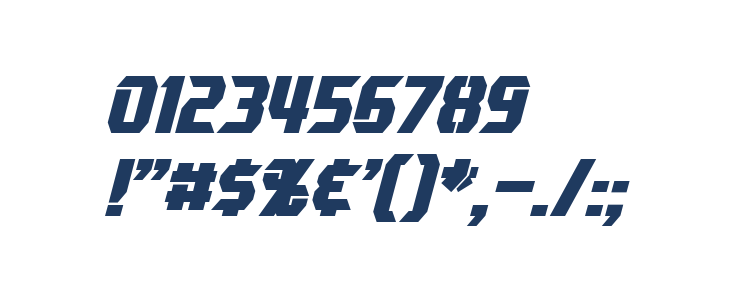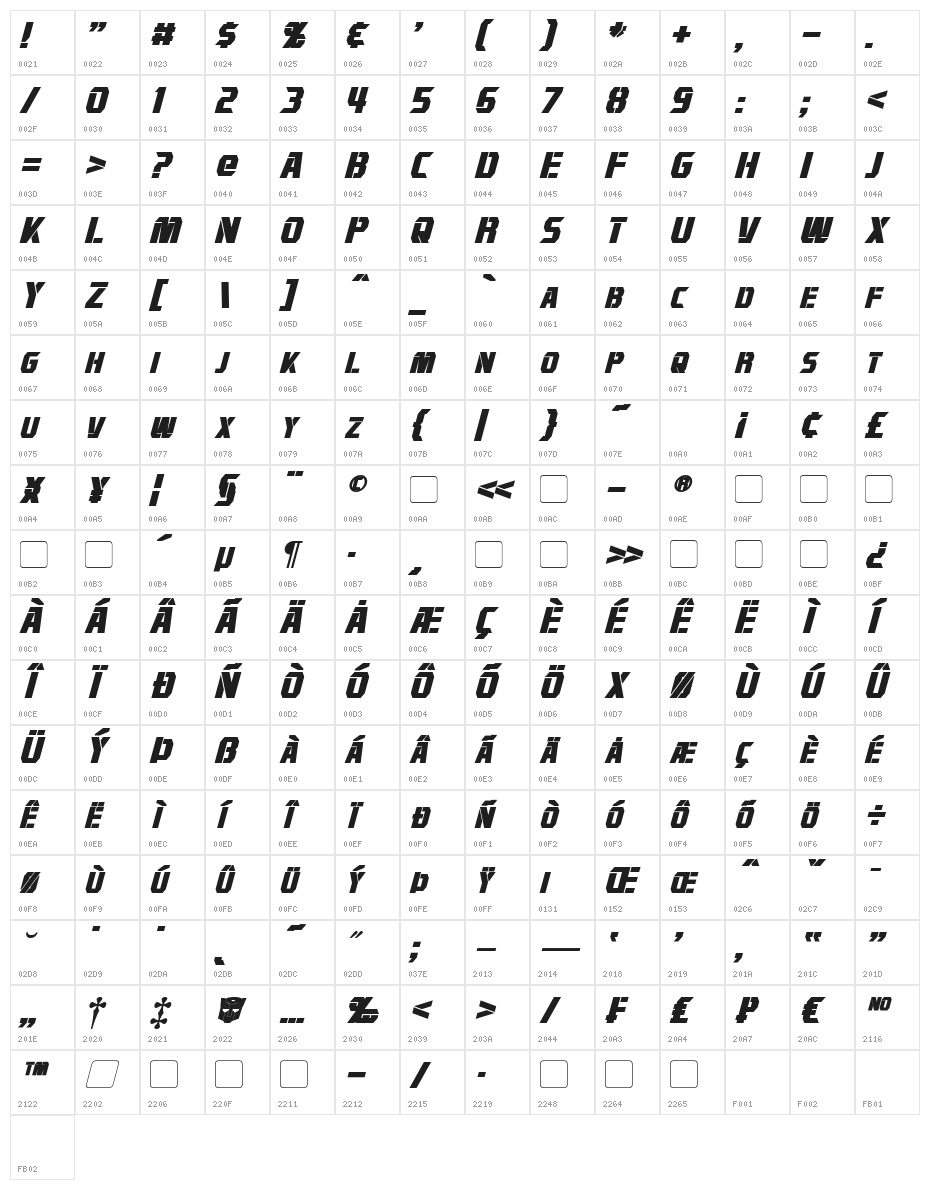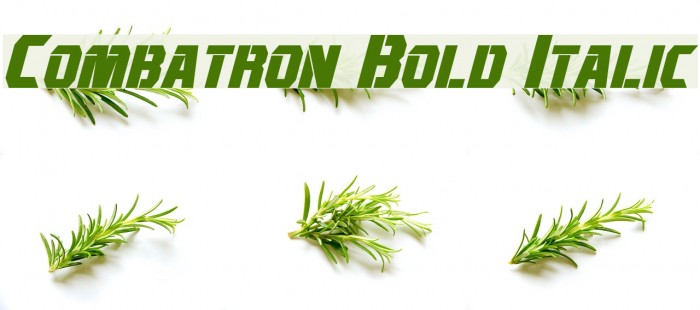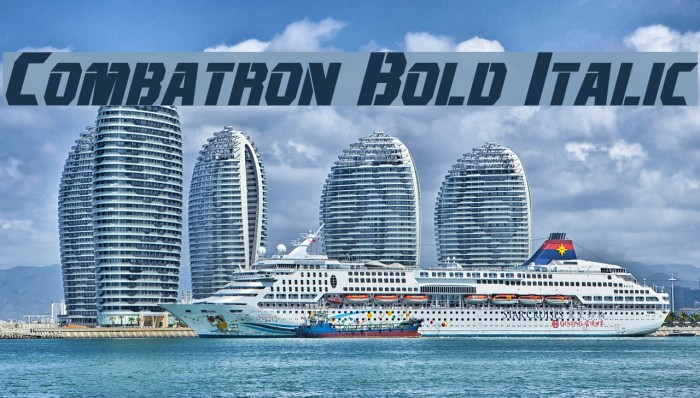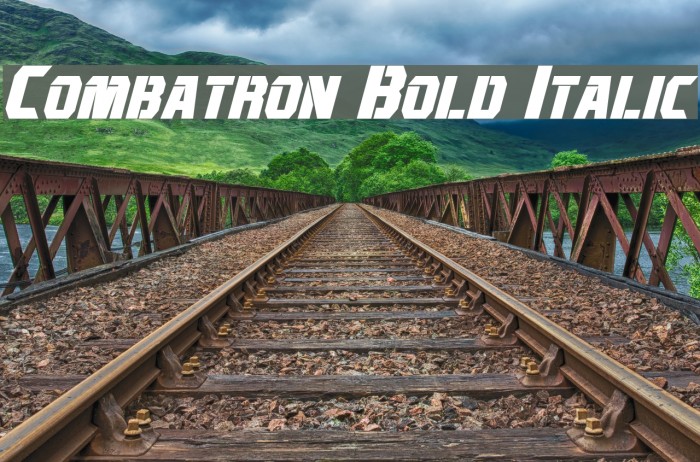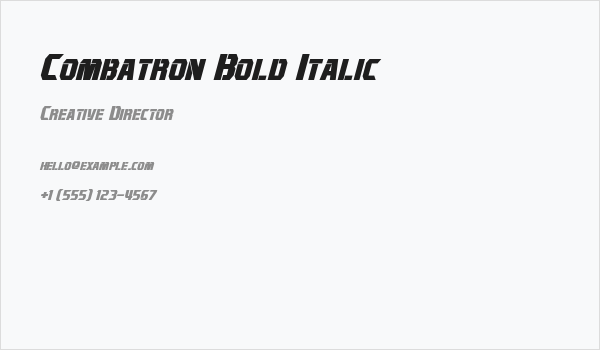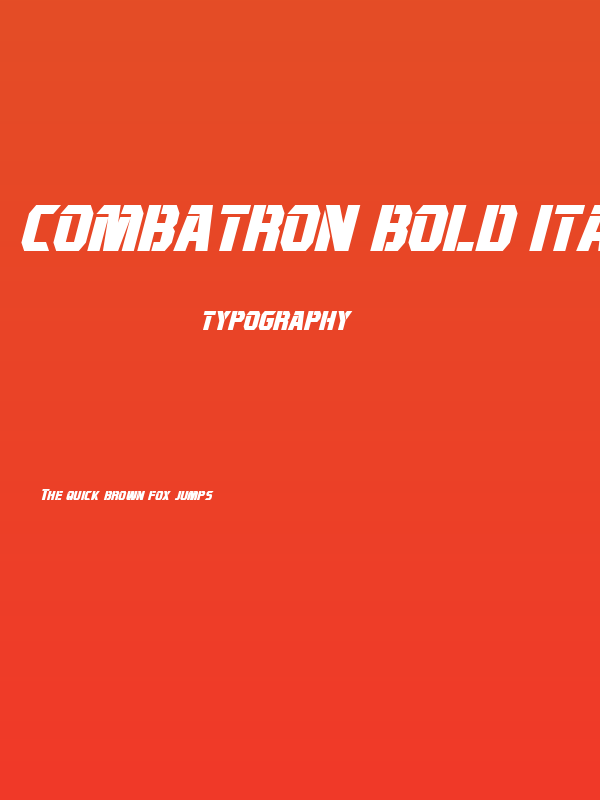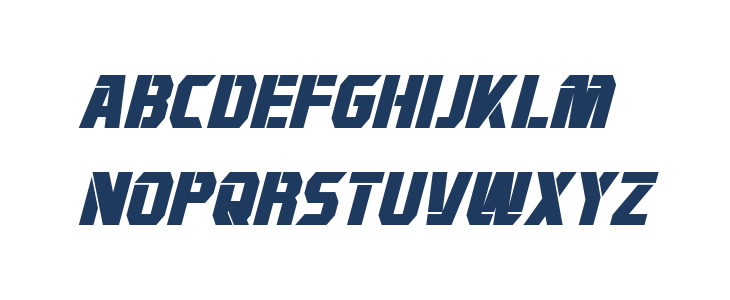
Combatron Bold Italic Font
Combatron Bold Italic Description
This font exhibits a bold and dynamic style, characterized by its strong, angular lines and italicized slant. The uppercase and lowercase letters maintain a consistent geometric form, creating a sense of movement and energy. The numerals and special characters are designed with the same boldness, ensuring uniformity across all glyphs. The font's aggressive and futuristic appearance makes it ideal for projects that require a modern and impactful look. Its distinct style is suitable for attention-grabbing headlines, logos, and branding materials that aim to convey strength and innovation.